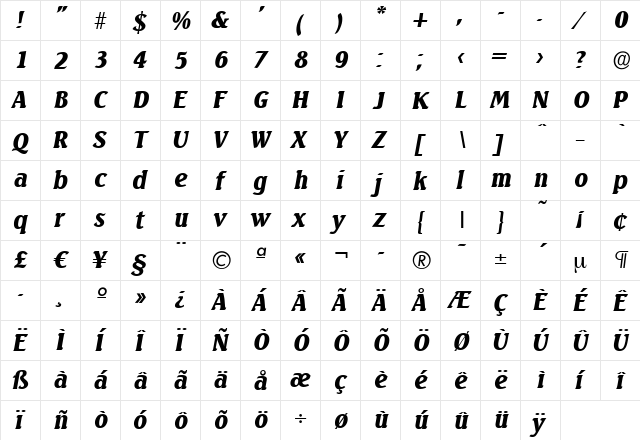
AbelBecker-Black Italic
Design Context for AbelBecker-Black Typeface
AbelBecker-Black offers clean, dependable letterforms without strong stylistic allegiance, making it a practical choice for designers who need flexibility. The dynamic lean of this cut emphasises speed and emphasis in any layout.
Pro Tip: Try AbelBecker-Black for annotation and caption copy alongside an upright companion — the contrast in angle creates a dynamic but ordered typographic system.